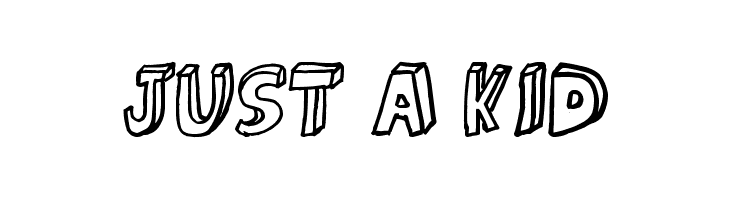
( weknow - Wino S Kadir - www.creativefabrica.com/designer/weknow/ )
A modern, hollow font with rounded edges and consistent stroke width.
( weknow - Wino S Kadir - www.creativefabrica.com/designer/weknow/ )
A modern, hollow, and inverse font with smooth curves and consistent stroke width.
( weknow - Wino S Kadir - www.creativefabrica.com/designer/weknow/ )
A playful, rounded font with a tubular design and consistent stroke width.
( weknow - Wino S Kadir - www.creativefabrica.com/designer/weknow/ )
A playful, bold font with rounded, interconnected strokes and a modern, whimsical style.
( Fonts by Jacob Fisher - www.pizzadude.dk )
A playful, hand-drawn font with hollow, outlined characters.
( Fonts by Jacob Fisher - www.pizzadude.dk )
A playful, bold, and hand-drawn font with a whimsical style.
A playful, hand-drawn font with diagonal hatching and a bold, rounded style.
A playful, hand-drawn outlined font with a whimsical and creative style.
( Fonts by Michele Vannucchi MKT )
A playful, bold outline font with rounded edges and uniform strokes.